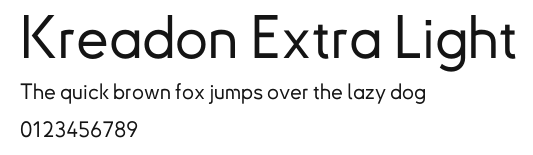
• Font Name: Kreadon Extra Light
• Designer: Reiya WATANABE
• Manufacturer: StudioGnu
About Kreadon Extra Light.otf
Kreadon Extra Light.otf is a modern, elegant sans-serif font designed for ultimate readability and visual harmony. Perfect for branding, headlines, web design, and print materials.